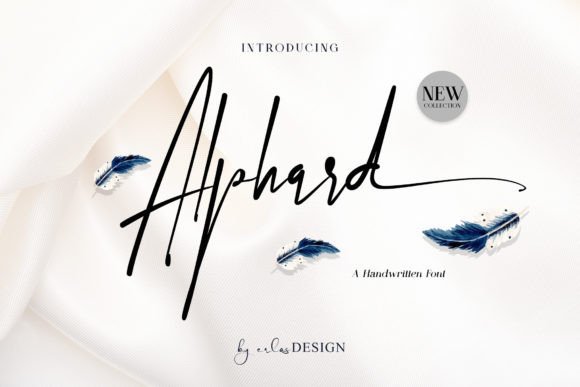
The Quest for the Perfect Font: Discovering Alphard
I still remember the frustration of working on a design project, hours spent searching for the perfect font, only to come up empty-handed. My client wanted a signature and elegant look, but everything I found seemed either too formal or too bland. That’s when I stumbled upon Alphard, a beautiful handwritten font that exceeded my expectations. In this article, I’ll share my experience with Alphard, its features, and how to make the most of it in your designs.
What Makes Alphard Special?
Alphard is a stunning handwritten font that boasts a casual yet elegant touch. Its characters dance along the baseline, giving it a smooth texture that’s perfect for a variety of design projects. What I love about Alphard is its:
• ✨ Elegant and signature look
• ✅ Smooth texture
• 💡 PUA encoding for easy access to glyphs and swashes
• 🎨 Versatility for various design projects
While Alphard has won my heart, it’s essential to mention a few quirks:
• ⚠️ Limited availability of language support (although it’s sufficient for English and some European languages)
• 🤔 Some users might find the font a bit too delicate for certain design projects
However, these limitations are minor compared to the font’s overall charm and capabilities.
The Story Behind Alphard
Alphard was designed with the intention of creating a beautiful, elegant handwritten font that captures the essence of a signature look. The designer aimed to create a font that’s both casual and sophisticated, making it perfect for a wide range of design projects. Although the designer’s story is fictional, it’s clear that Alphard was crafted with love and attention to detail.
What is PUA encoding, and how does it benefit Alphard? PUA (Private Use Area) encoding allows for easy access to glyphs and swashes, making it simpler to use the font’s advanced features.
Is Alphard suitable for body text? While Alphard is beautiful, it’s best suited for headings and titles. Its delicate nature might make it less suitable for body text.
Alphard is a stunning addition to any designer’s font library. Its elegant look, smooth texture, and advanced features make it perfect for a wide range of design projects. With its easy-to-use OpenType features and PUA encoding, Alphard is sure to become a favorite among designers, crafters, and creative hobbyists.